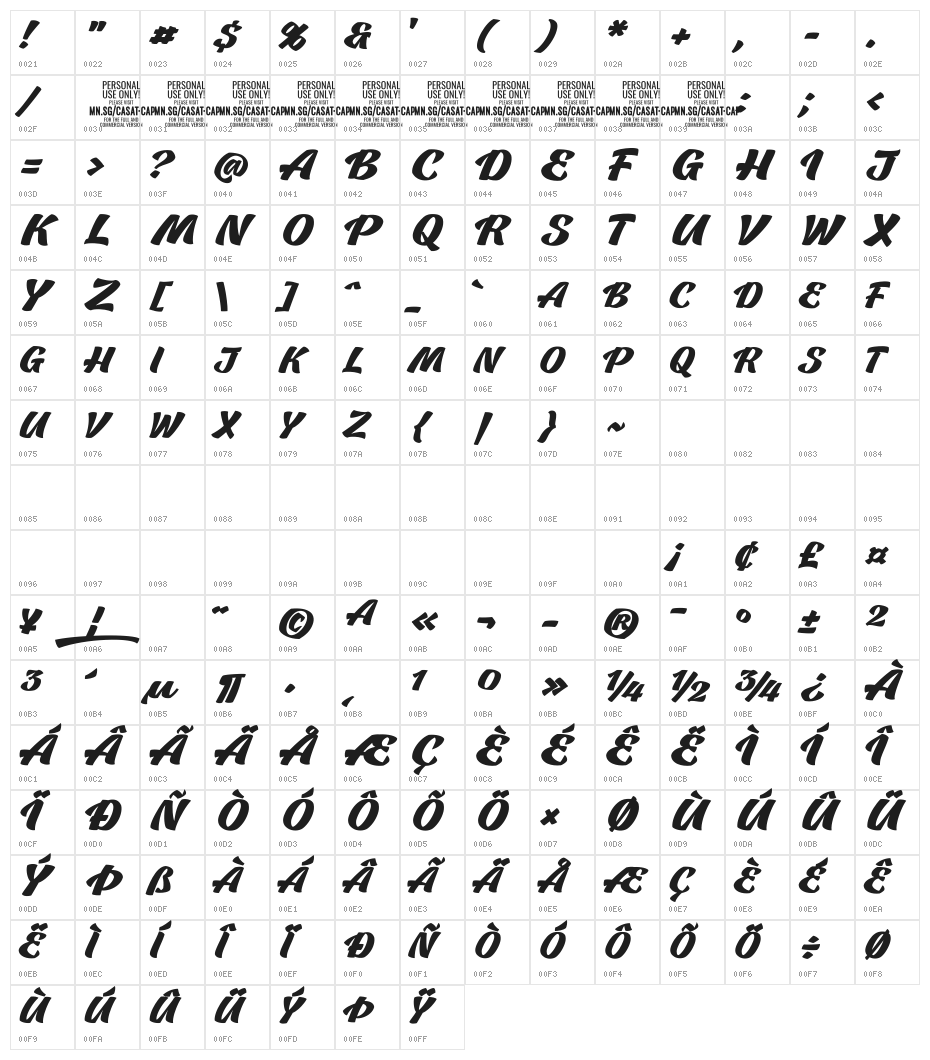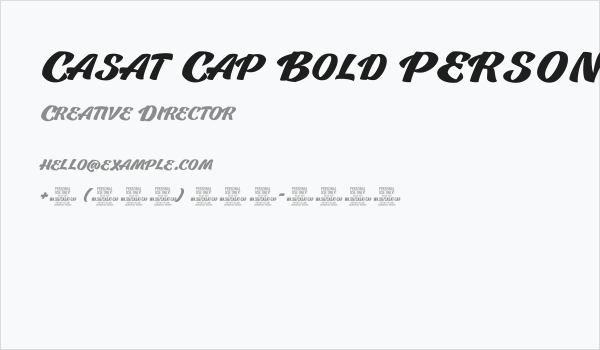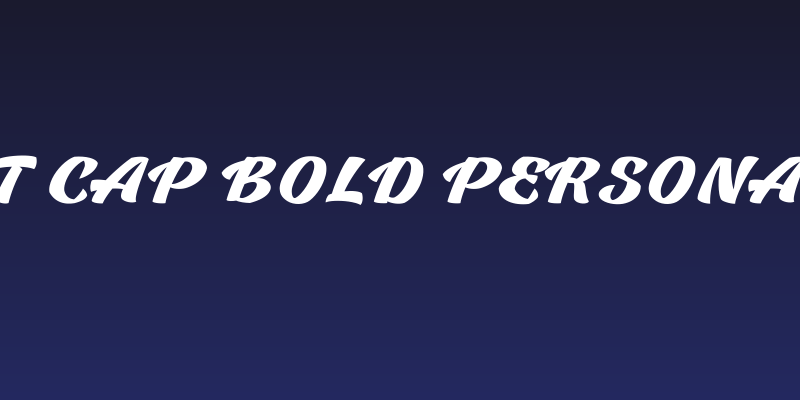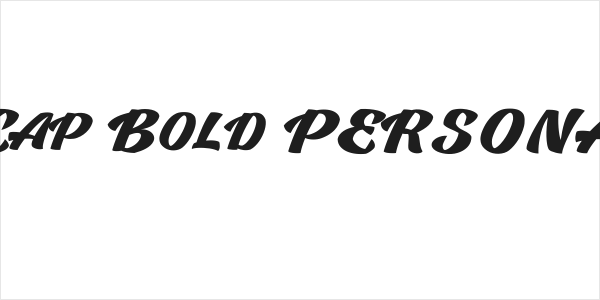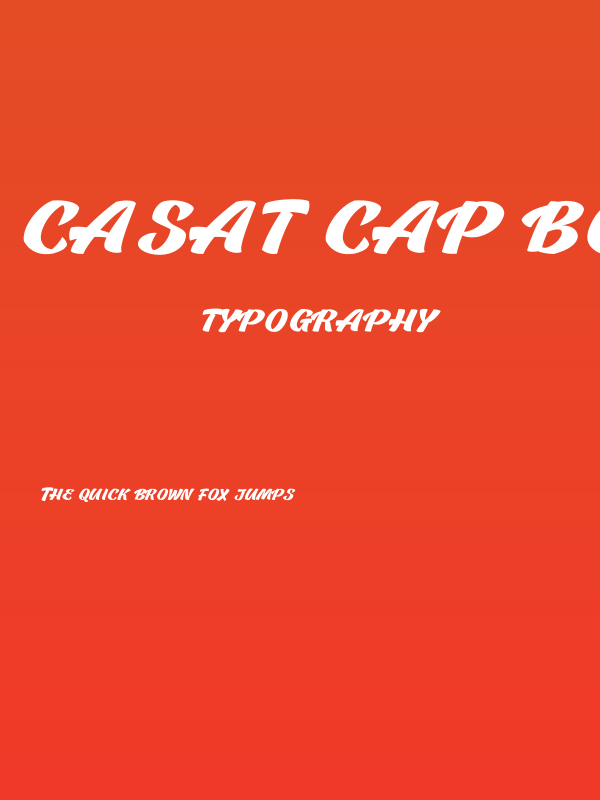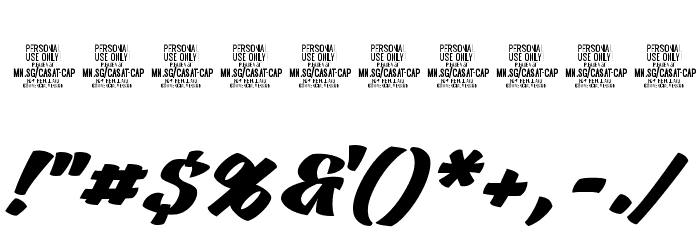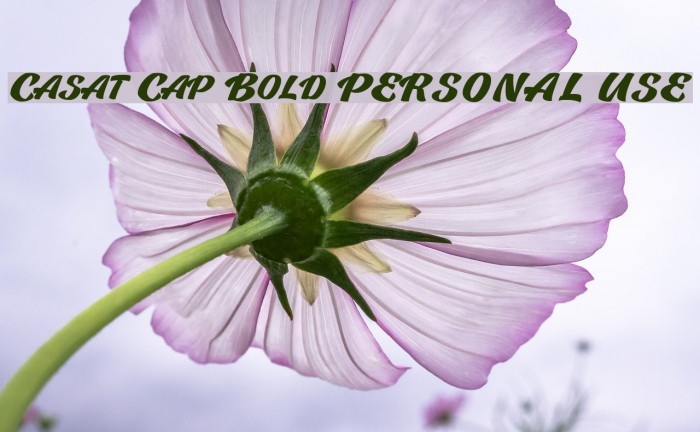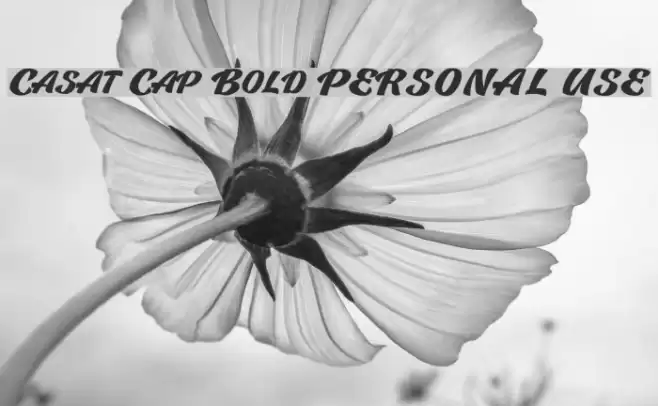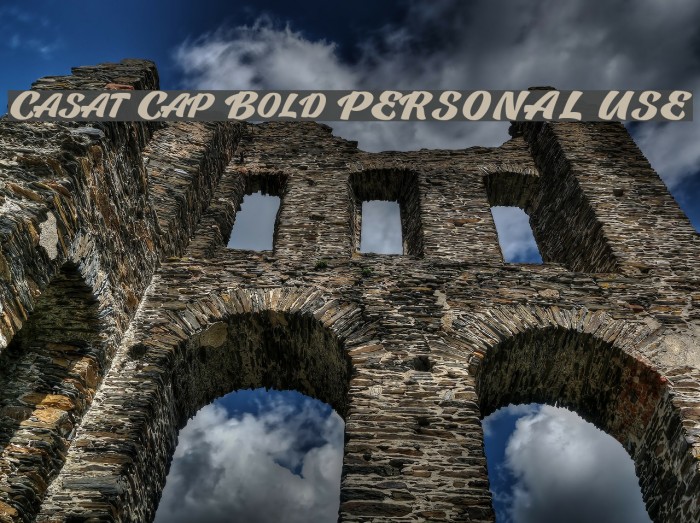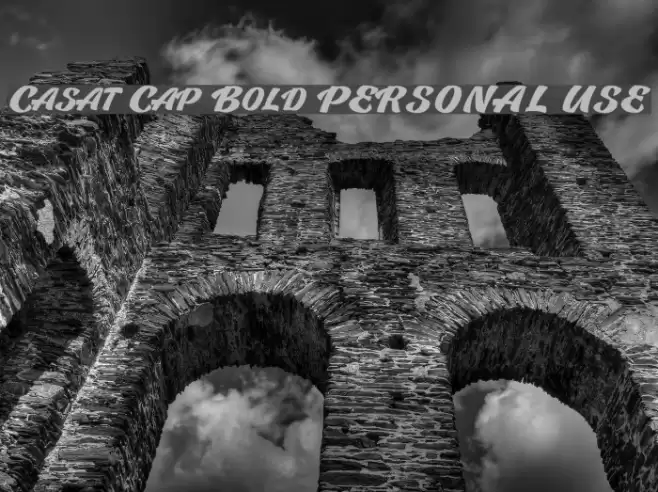
Casat Cap Bold PERSONAL USE Font
Casat Cap Bold PERSONAL USE Description
This font features a bold, dynamic script style with a strong presence. The letters are slightly slanted, giving a sense of movement and energy. The strokes are thick and consistent, providing a robust and impactful appearance. The uppercase and lowercase letters maintain a cohesive style, with smooth curves and sharp edges that enhance readability. The special characters complement the overall design, making it versatile for various uses. The font's boldness and unique style make it suitable for attention-grabbing designs.
| Proposed Projects | Ideal for branding, logos, headlines, posters, and any design requiring a bold statement. |